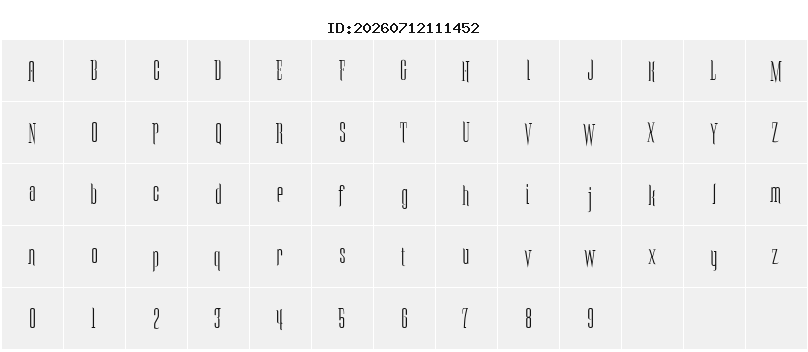
• Font Name: Malaise
• Full Font Name: MalaiseTall
About Malaise.ttf
Malaise.ttf is a modern, elegant sans-serif font designed for ultimate readability and visual harmony. Perfect for branding, headlines, web design, and print materials.